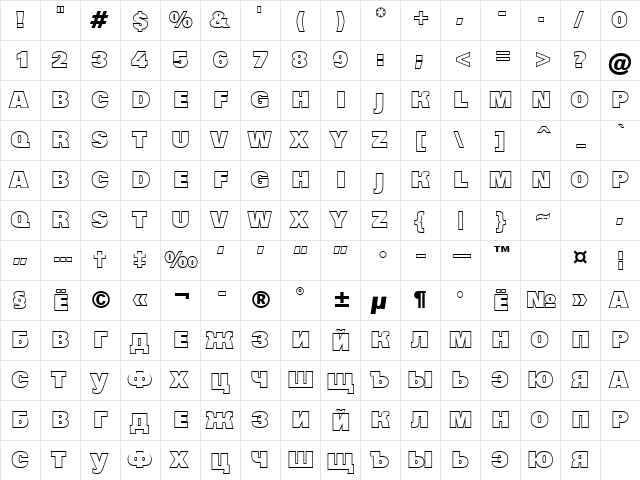
a_GroticTitulOtlHv Regular
Design Context for a_GroticTitulOtlHv Typeface
a_GroticTitulOtlHv offers clean, dependable letterforms without strong stylistic allegiance, making it a practical choice for designers who need flexibility.